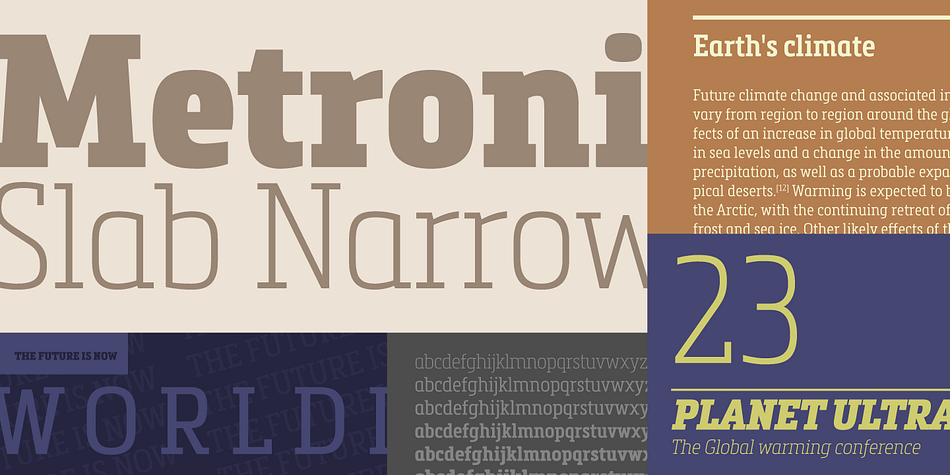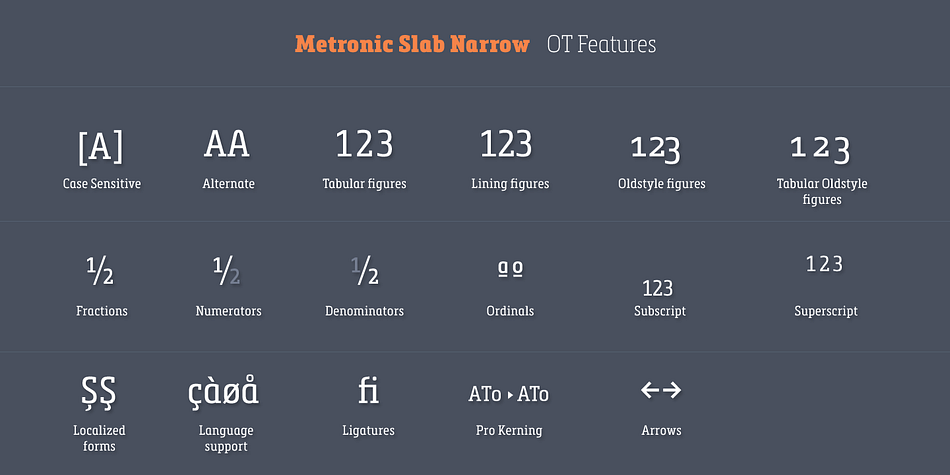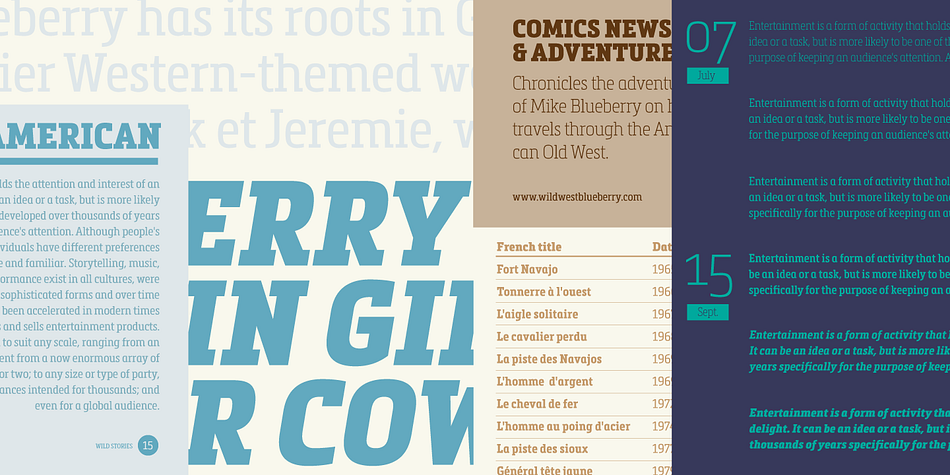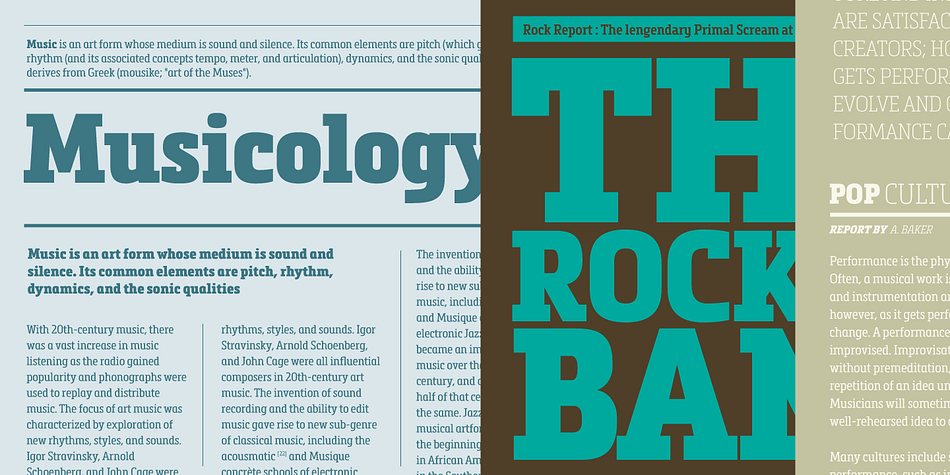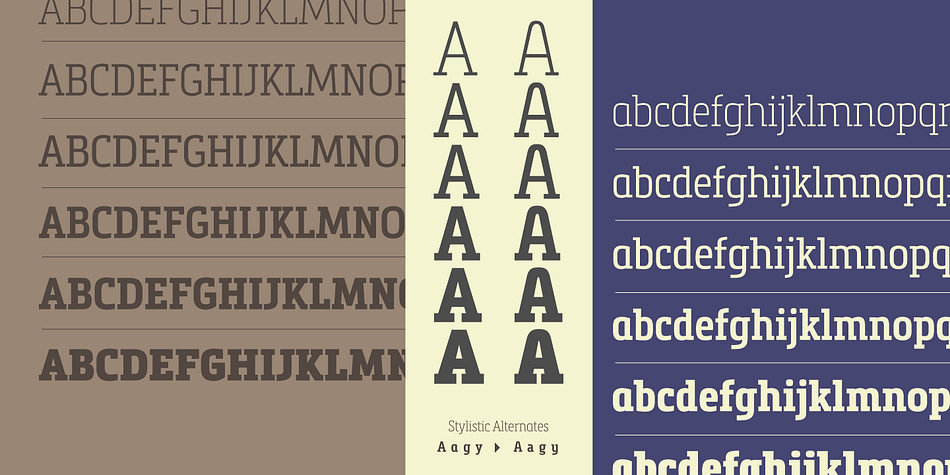
Metronic Slab Narrow is a slab serif font family. This typeface has twelve styles and was published by Mostardesign.
Metronic Slab Narrow is the condensed version of the Metronic Slab font family. This condensed style is designed for space-saving typography but with high legibility and versatility in mind.This Family also improved the needs of developers and graphic designers looking for width-compatible fonts. As the normal style this font family is an innovative and refreshing semi serif design with a contemporary look for text and headlines. It has six versatile weights from Air to Black with an alternative glyph set to improve its use in different graphic contexts.